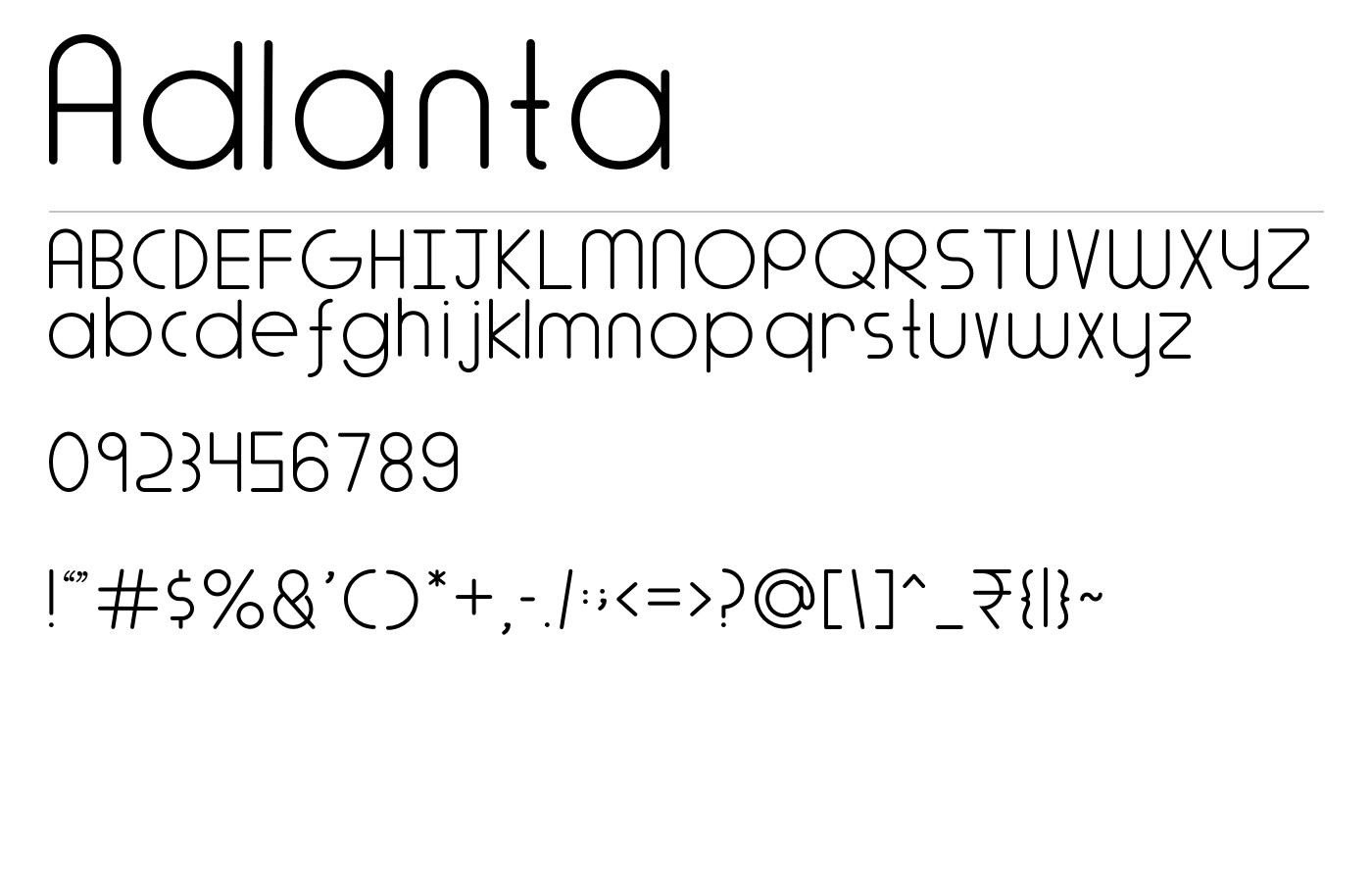
Adlanta is a modern, geometric sans serif font characterized by its slender, clean lines and rounded letterforms. With a light weight and a tall x-height, it offers excellent readability while maintaining a stylish, contemporary feel, making it ideal for minimalist branding, editorial headlines, and tech-savvy web design. Its sleek, airy appearance lends a sense of sophistication and approachability, perfect for projects seeking a fresh and elegant aesthetic.
Adlanta Font
About Adlanta Font
| Font family | Adlanta Font |
| Designer | Swapnil Deshpandey |